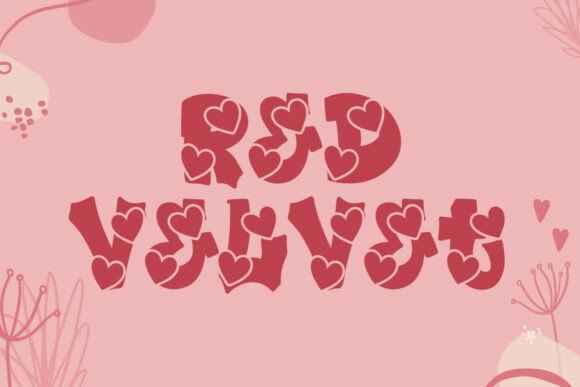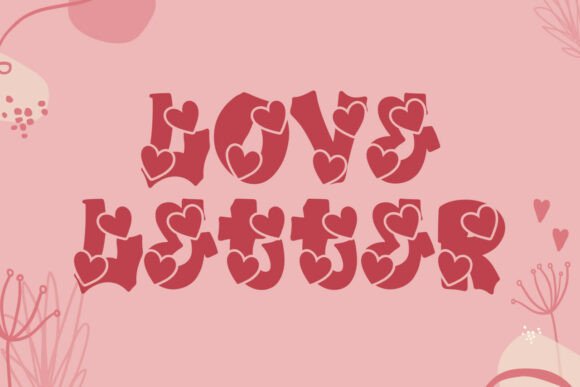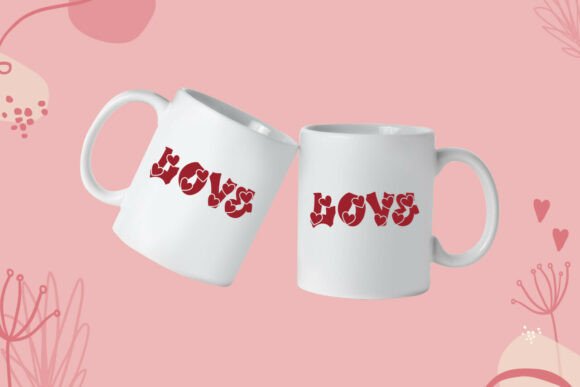
Introduction to Plump Valentine Font
Meet Plump Valentine Font brings cute, bubbly charm to love notes, tees, stickers, and gifts.
Rounded letters feel soft and joyful, while wide counters keep every word clear on print and screen Use it for Valentine cards, proposal boxes, candy labels, classroom parties, and romantic social posts.
Key Features of Plump Valentine Font
Why Choose Plump Valentine Font?